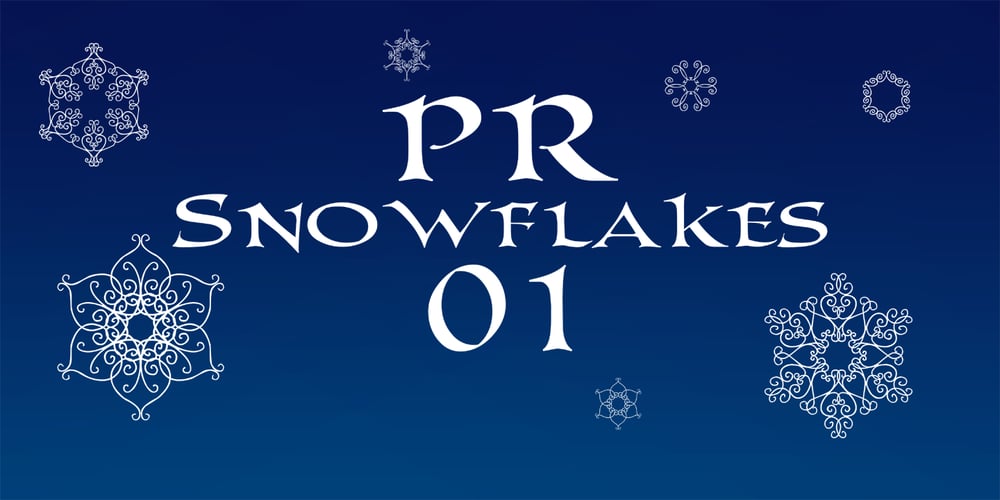
PR Snowflakes 01 Font Family was designed by Peter Rempel and published by PR Fonts. PR Snowflakes 01 contains 1 styles and family package options. These are curly designs arranged into fanciful snowflakes, evoking 1960’s psychedelia as well as Victorian romanticism. An excellent choice for any winter holiday material.